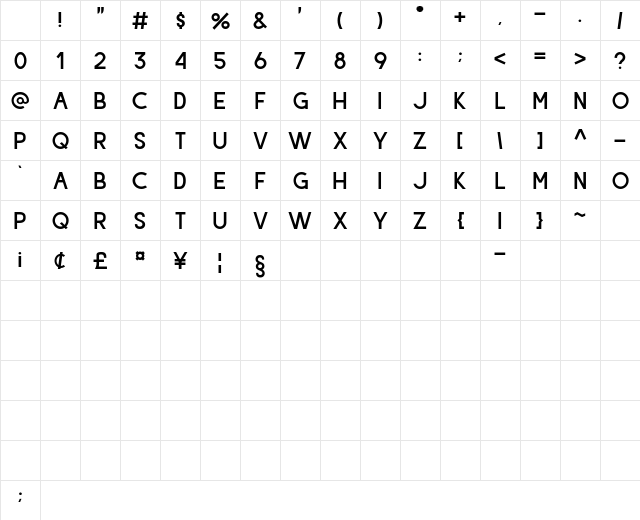
Hiyotori is a composed and adaptable typeface that performs quietly and consistently across a wide range of design contexts. Its bold stroke weight gives it real presence on the page.